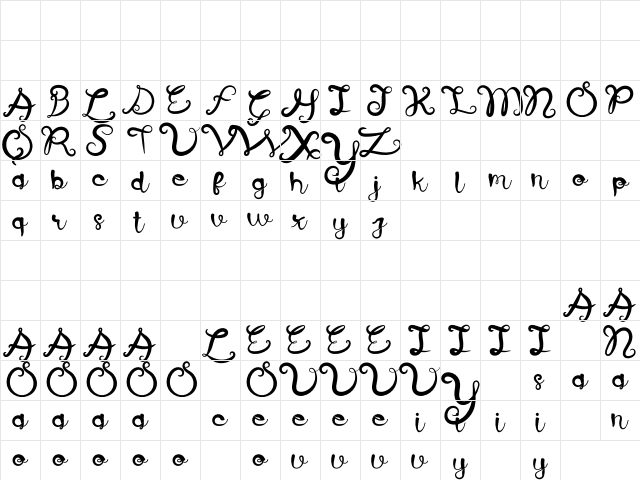
Blueberry Jam Free For Personal Regular
Designer: Steve Art
Design Context for Blueberry Jam Free For Personal
Blueberry Jam Free For Personal is a composed and adaptable typeface that performs quietly and consistently across a wide range of design contexts.